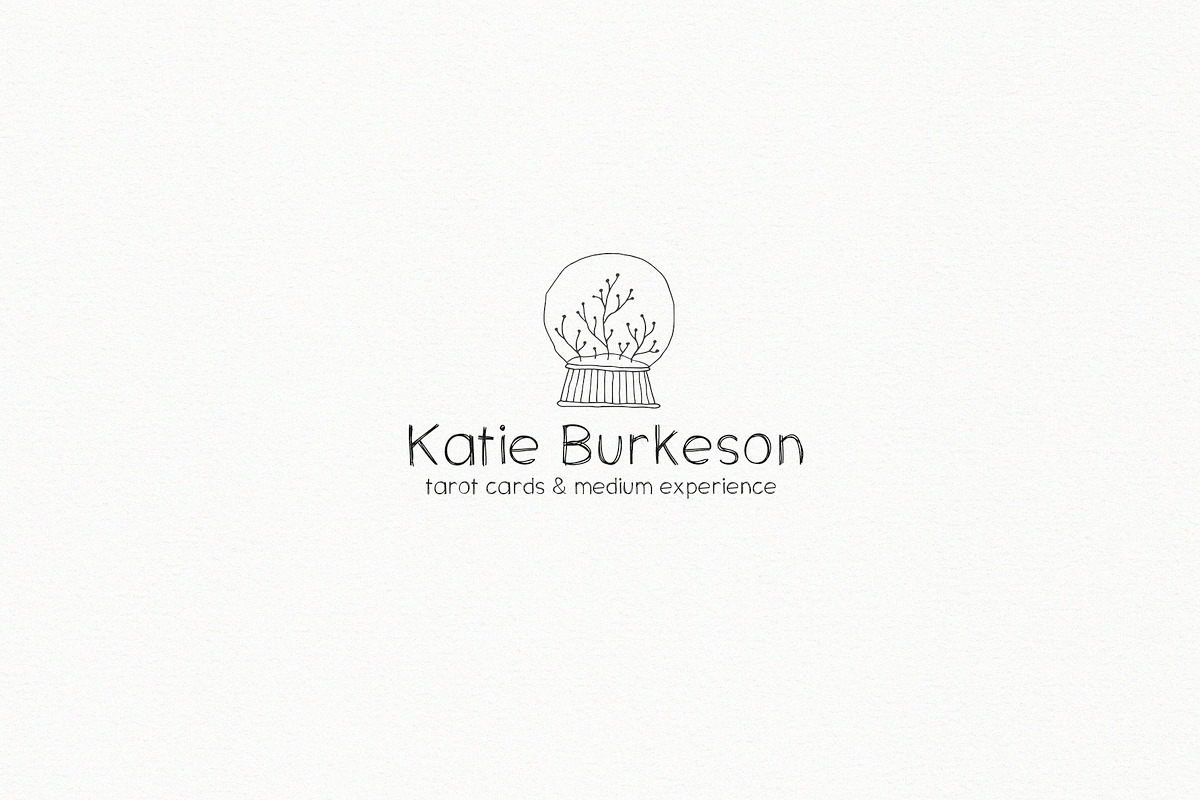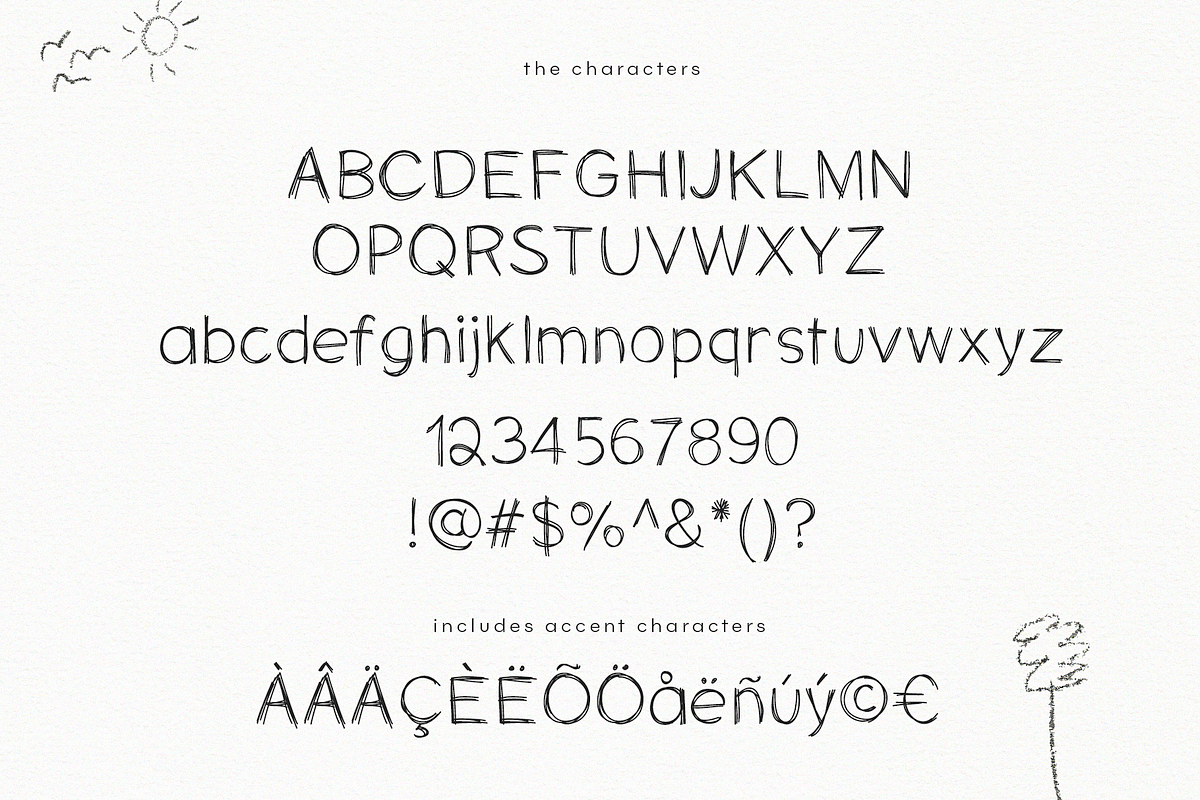
Believe - A Handwritten Font
Believe is a messy, handwritten font with a rustic look.
This font is perfect for branding, farmhouse designs, quotes, headings, logos, invitations and more!
This font does include accent characters.